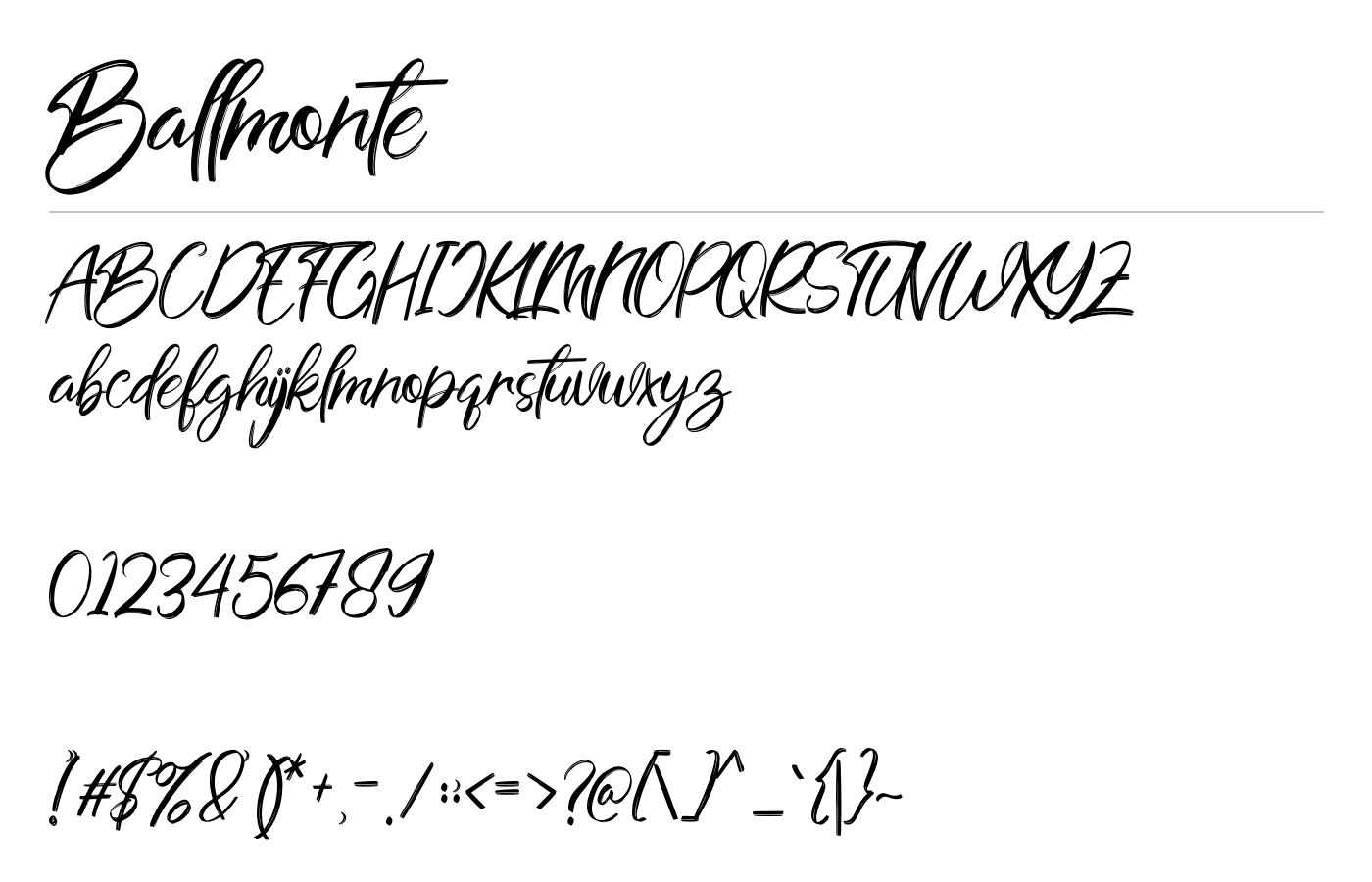
Ballmonte is an elegant script font with a handwritten, calligraphic style that features smooth, flowing strokes and a lively, energetic feel. Its medium weight and slightly condensed letterforms give it a stylish yet readable appearance, making it perfect for creative branding, invitations, and expressive headlines. This font adds a personal, artistic touch to designs that seek a modern yet sophisticated vibe.
Ballmonte Font
About Ballmonte Font
| Font family | Ballmonte Font |
| Designer | Febryl Arully |